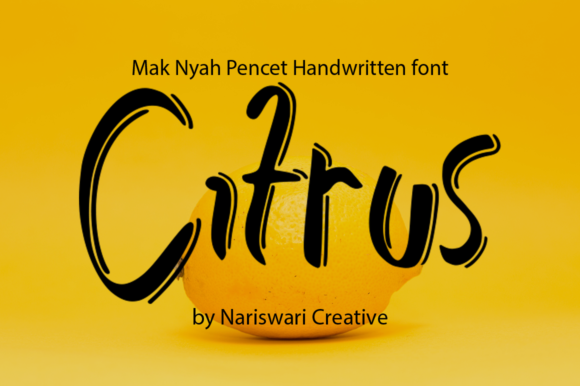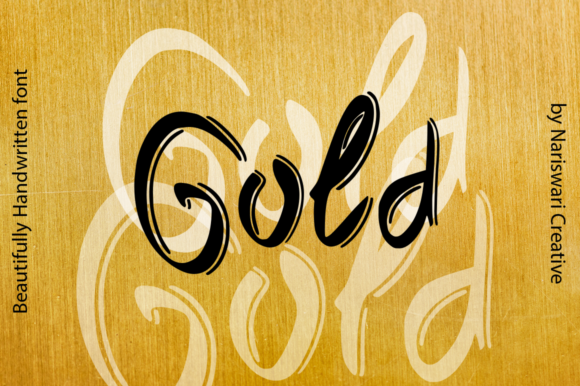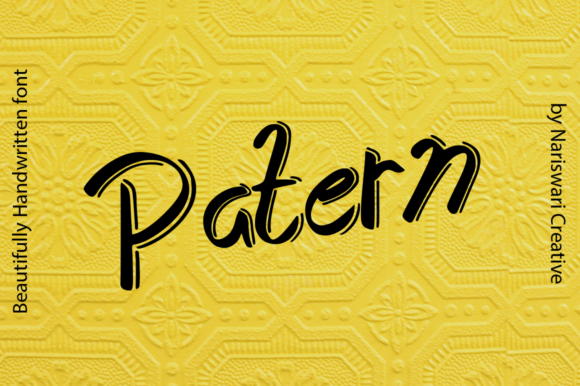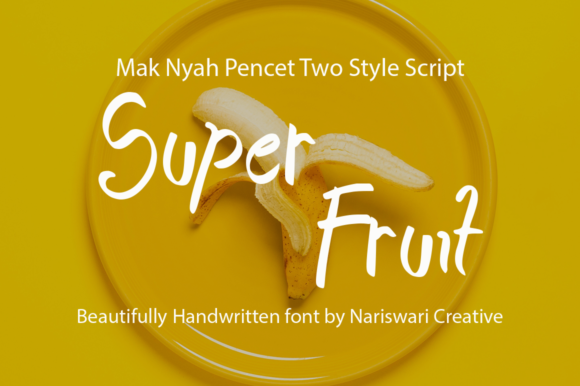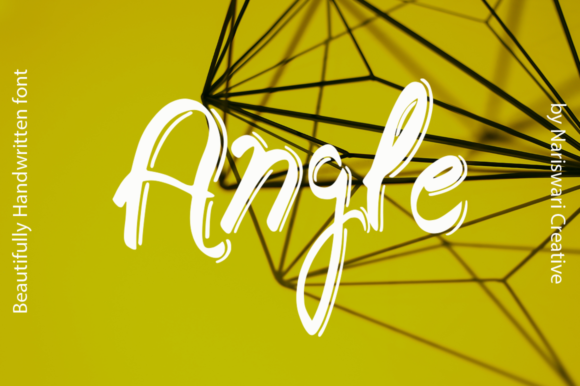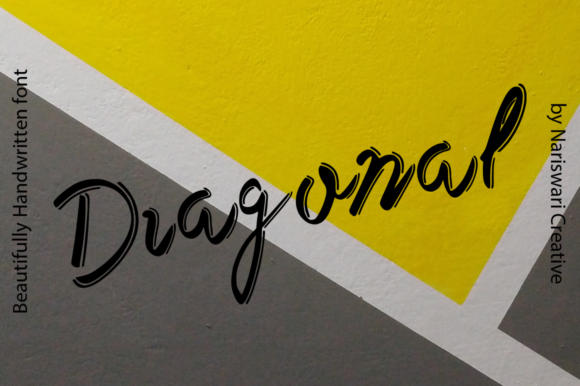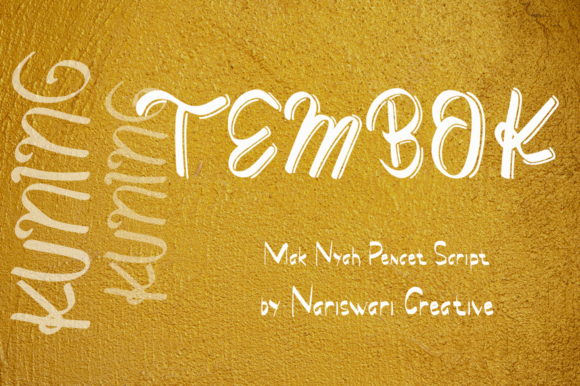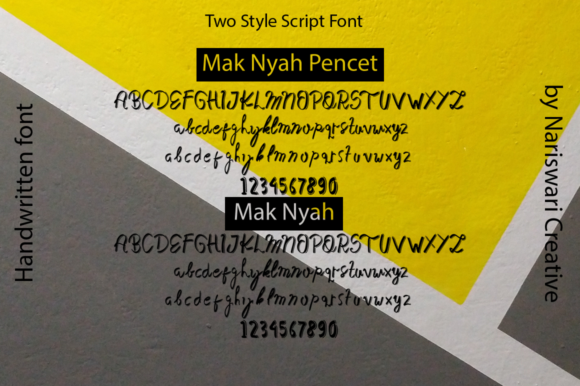
Mak Nyah Pencet Font
About Mak Nyah Pencet Font
Mak Nyah Pencet results out of a stunning pairing of a brush pen and pencil that makes it look incredibly endearing and authentic. Use this gorgeous and unique handwritten font to bring any DIY project to life!